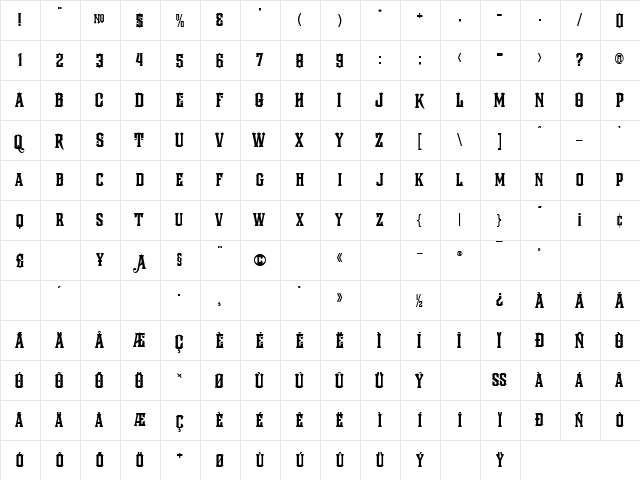
LHF Fire House Regular
Design Context for LHF Fire House Typeface
LHF Fire House is a composed and adaptable typeface that performs quietly and consistently across a wide range of design contexts.